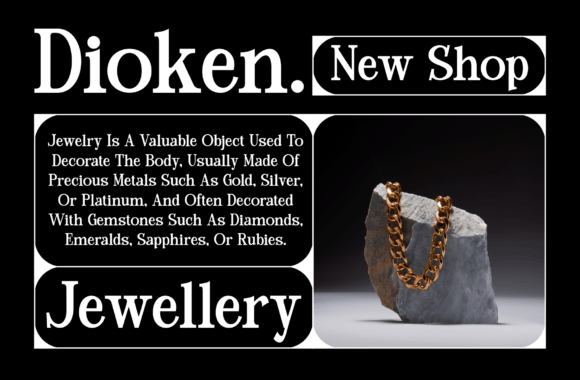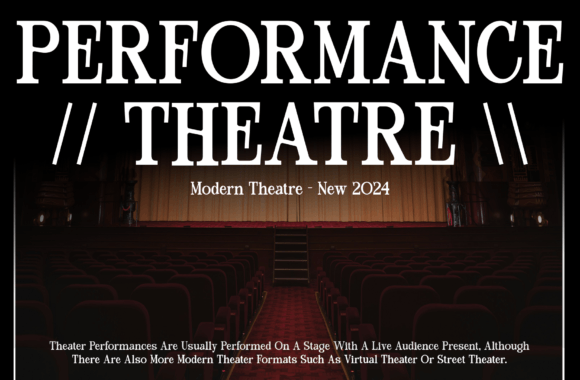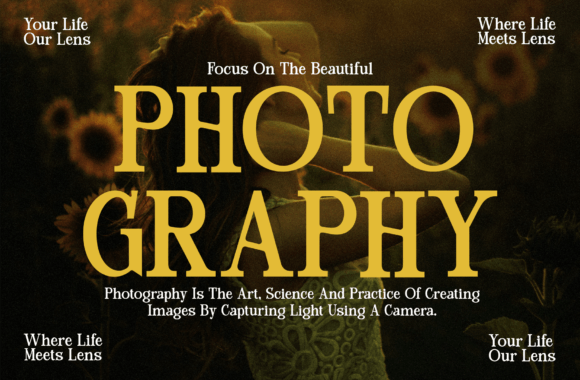
Introduction to Kemoni Font
Introducing our new product **Kemoni** – Serif Elegant This font is a type of letter that has special characteristics that create the impression of luxury, elegance and firmness.
This font involves a series of design elements such as balanced thin and thick lines, gentle curves, and elegant and clean serifs The sharp corners and fine details of each character create a highly aesthetic impression and exude an air of elegance.
Key Features of Kemoni Font
Why Choose Kemoni Font?
Kemoni Font offers exceptional quality and versatility, making it a valuable addition to your design toolkit. Whether you’re creating for personal projects or commercial use, Kemoni Font delivers professional results.